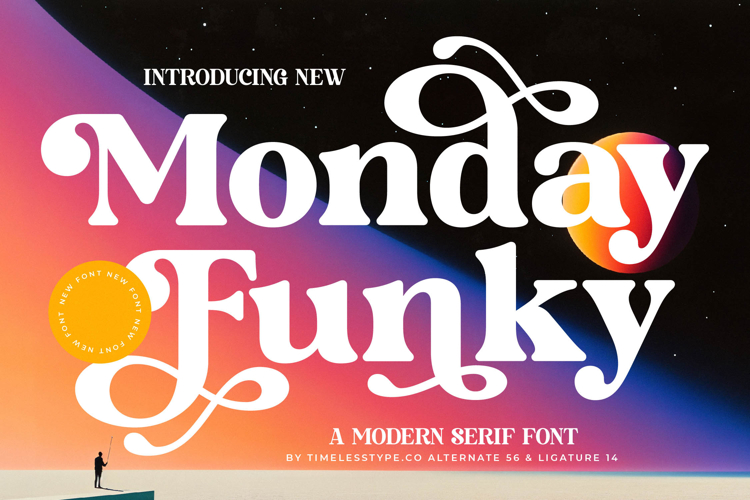
Monday Funky - Modern Serif Font
Discover the captivating allure of Monday Funky - Modern Serif Font, a typeface that effortlessly blends retro charm with contemporary sophistication. Its bold curves and distinctive serifs create an unforgettable visual statement, perfect for designers seeking to infuse their projects with a vibrant, yet elegant personality. This font evokes a sense of playful luxury, ensuring your message stands out with an undeniable presence.
Unleash unparalleled creative flexibility with Monday Funky - Modern Serif Font's rich feature set. Boasting high-contrast strokes and an impressive array of 56 alternate characters and 14 ligatures, this font offers limitless customization options. Elevate your typography with bespoke letterforms, transforming ordinary text into extraordinary design statements that capture attention and imagination.
Extend your design's reach with the global compatibility of Monday Funky - Modern Serif Font. With its extensive multilingual support, Monday Funky - Modern Serif Font adapts seamlessly across global markets, making it incredibly versatile for international projects. This ensures your brand communicates effectively, resonating with diverse audiences worldwide without compromising its distinctive style and clarity.